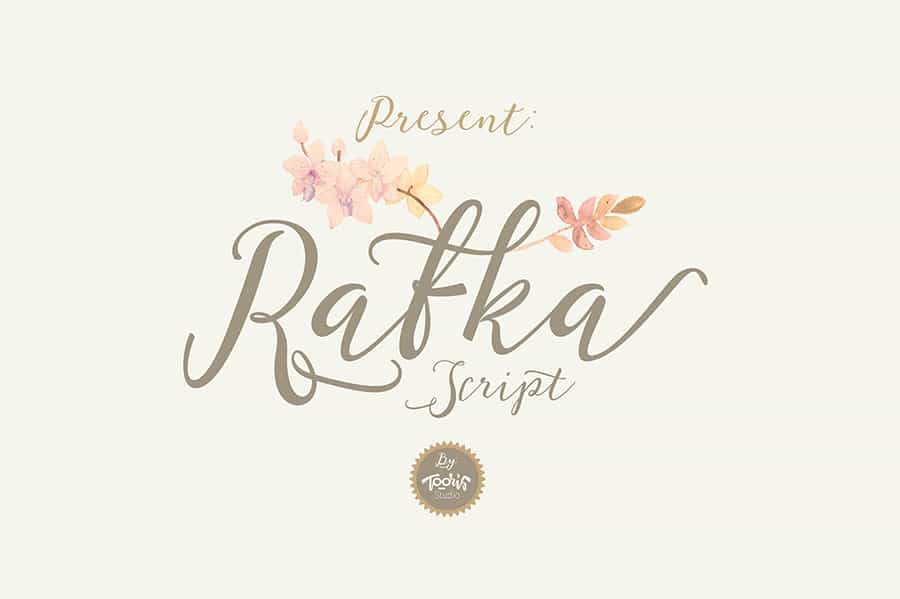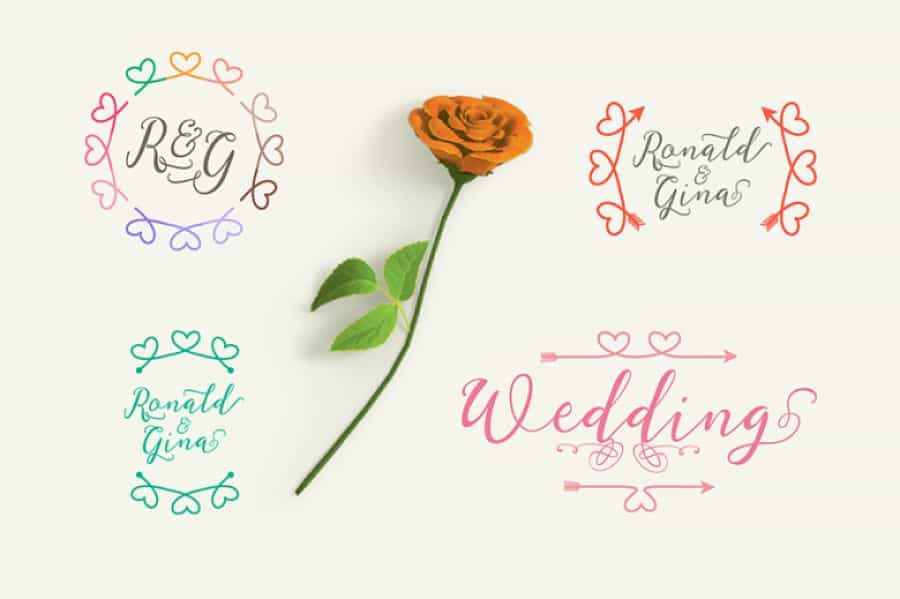
Rafka Calligraphy Style Introduced. Rafka calligraphy style uses copper letters to result in modern and sophisticated with a touch of classical and carved look. It can be used in various applications: Ink Printing ,Other Print such as titles, signatures, logos and t-shirts wedding invitations, labels and Signage Newsletters Posters Badge etc.